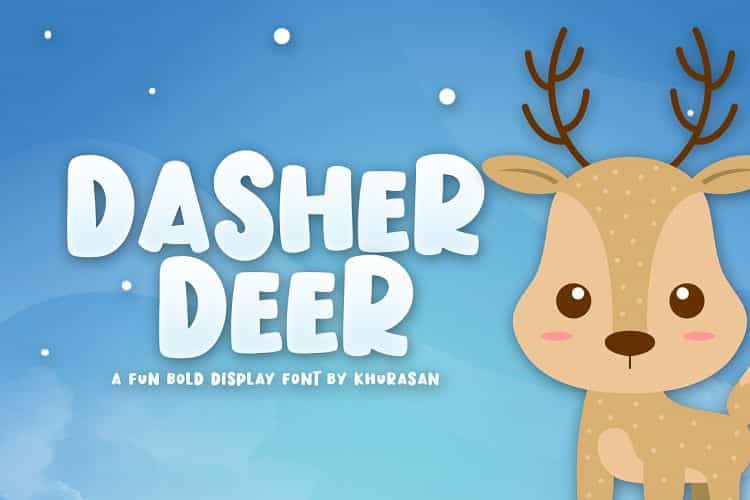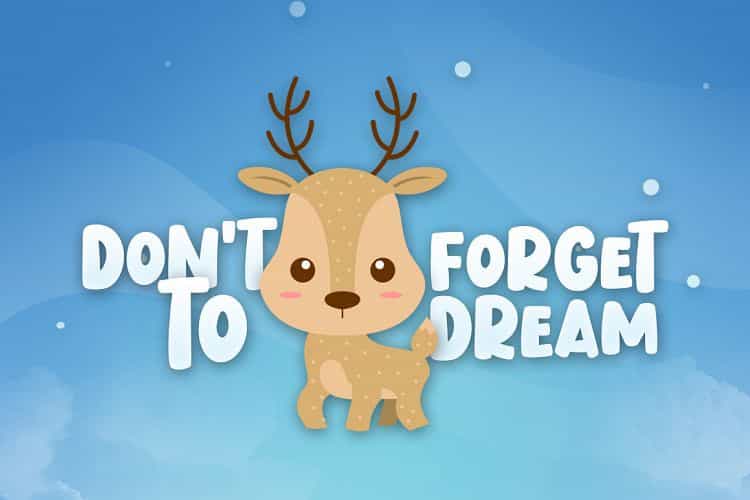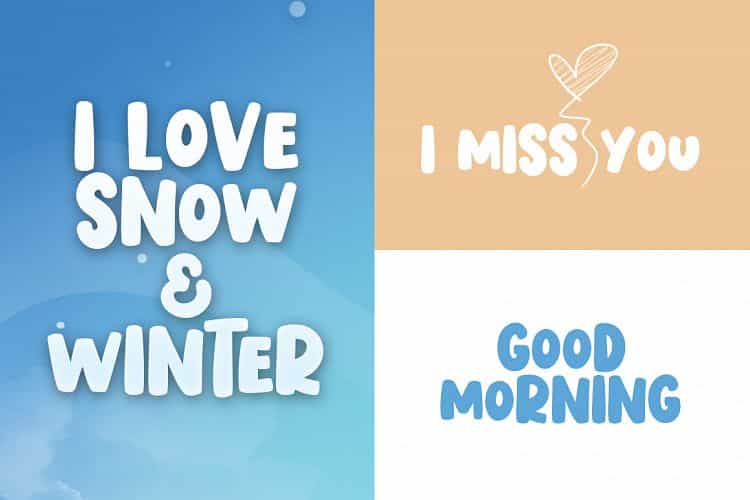
Dasher Deer is a stand-alone fun and bold display typeface with a cheerful theme to add to your fun project. Dasher Deer font perfect for use in logo design, branding, greeting card, poster design and any other design that you will be creating.